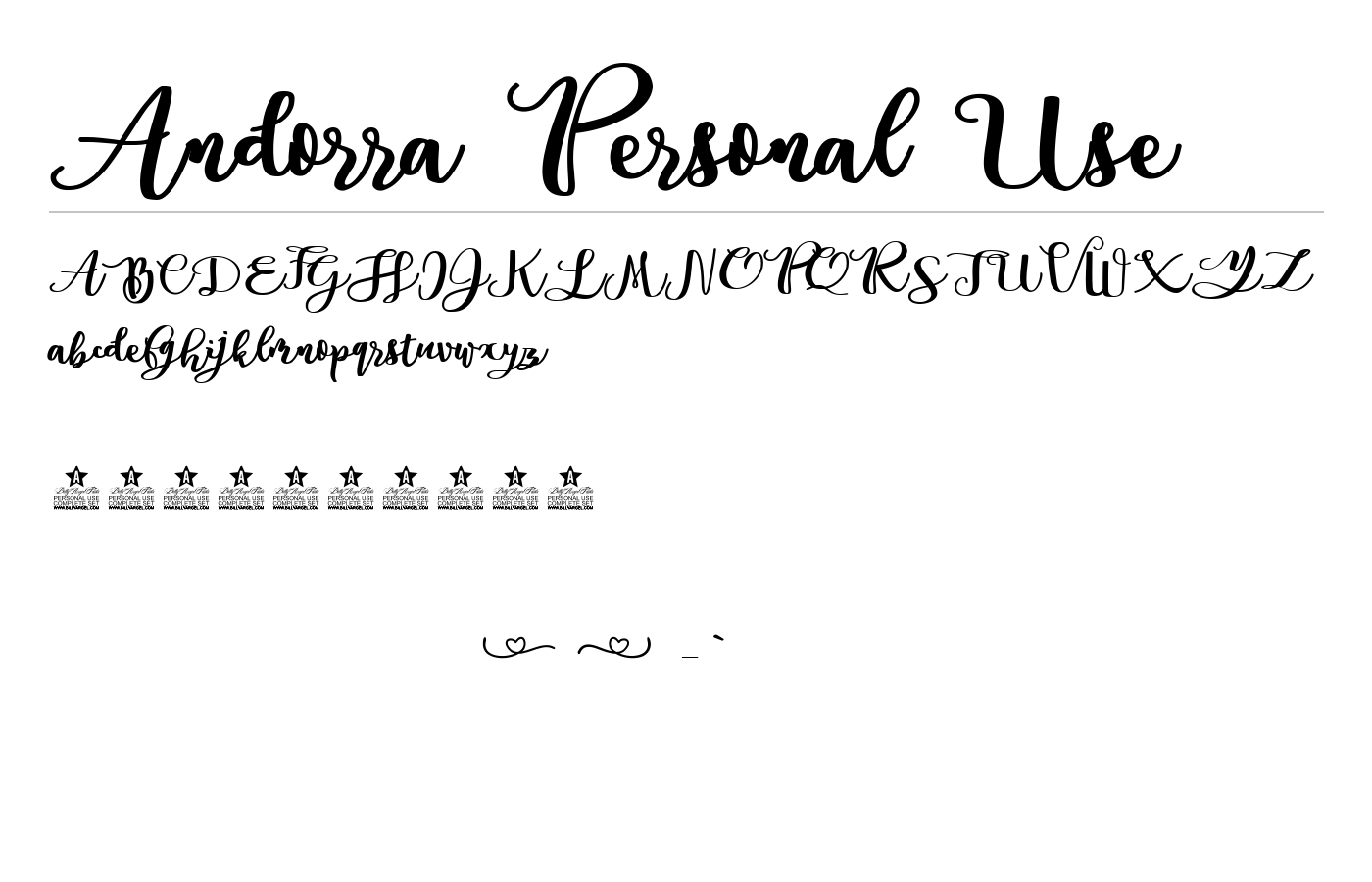
Andorra Personal Use is a delicate script font with elegant, flowing strokes and charming swashes that give it a hand-lettered feel. Its graceful, slightly bold letterforms and decorative details make it ideal for romantic and feminine designs, such as invitations, branding, and stylish headlines. This font works well where a personal, warm touch is desired, adding sophistication with a playful, artistic flair.
Andorra Personal Use Font
About Andorra Personal Use Font
| Font family | Andorra Personal Use Font |